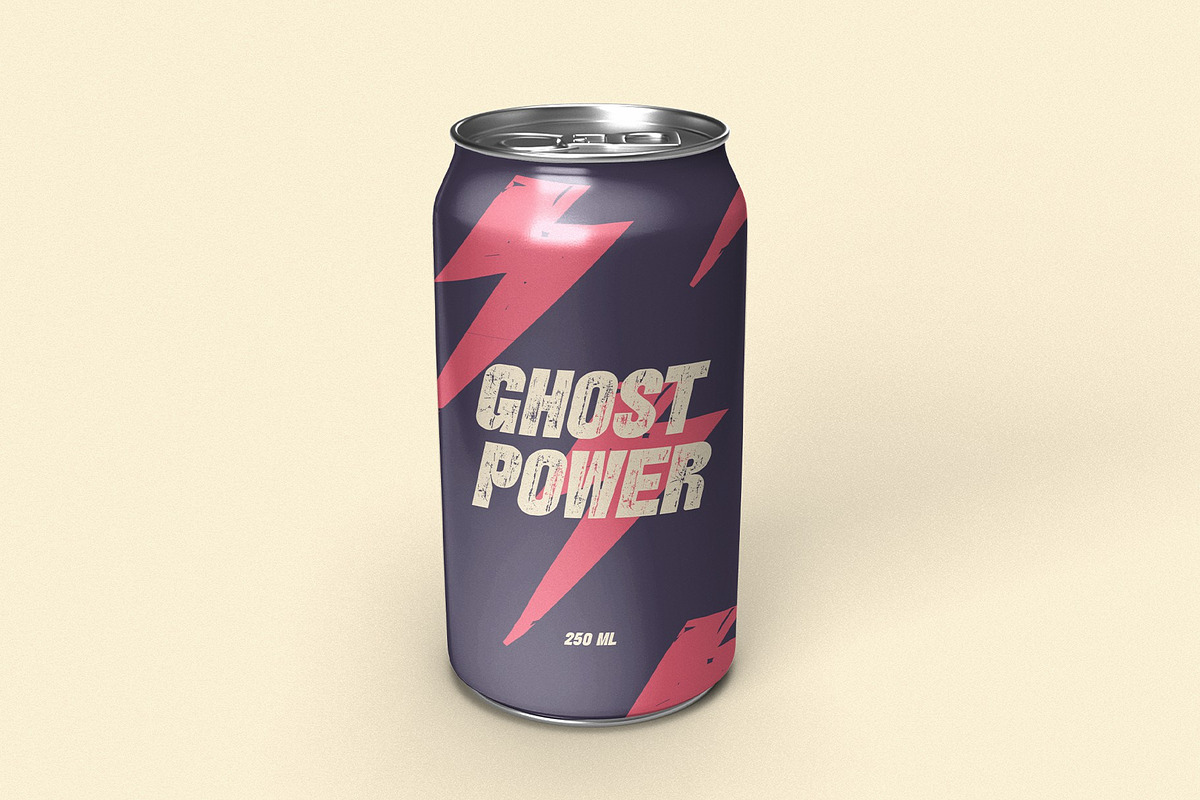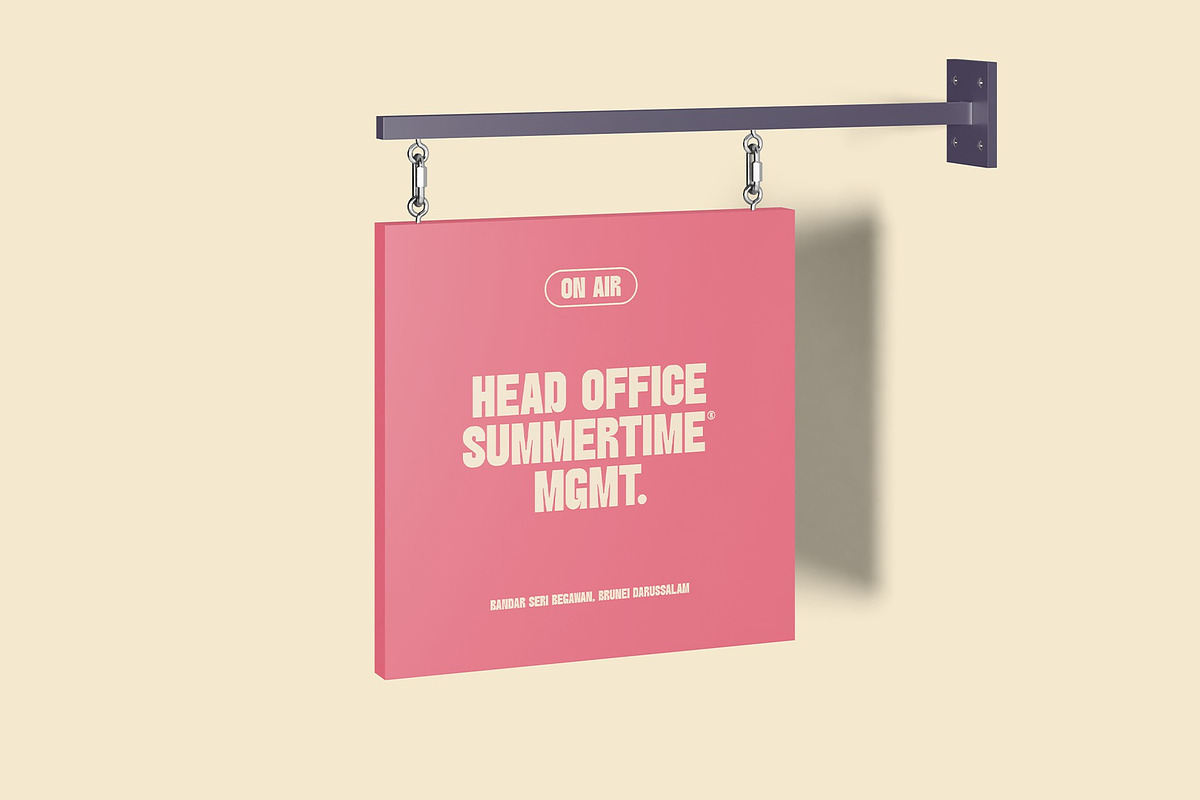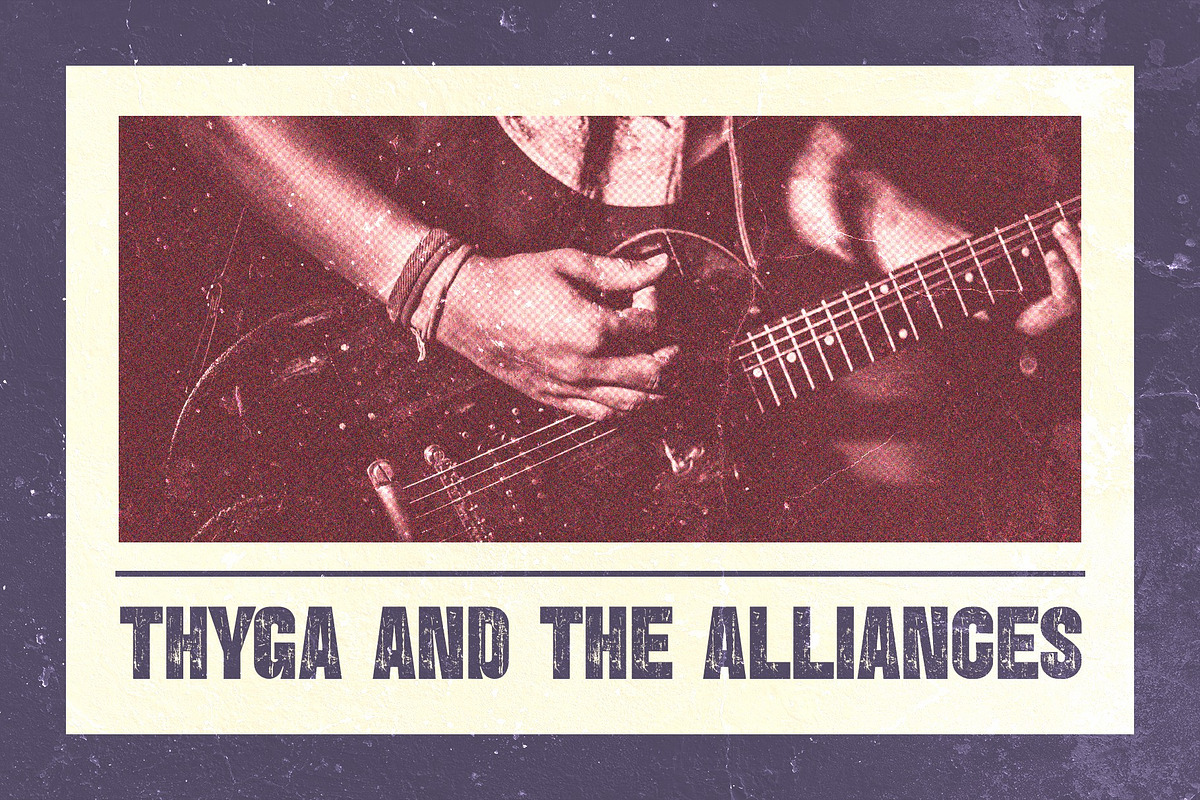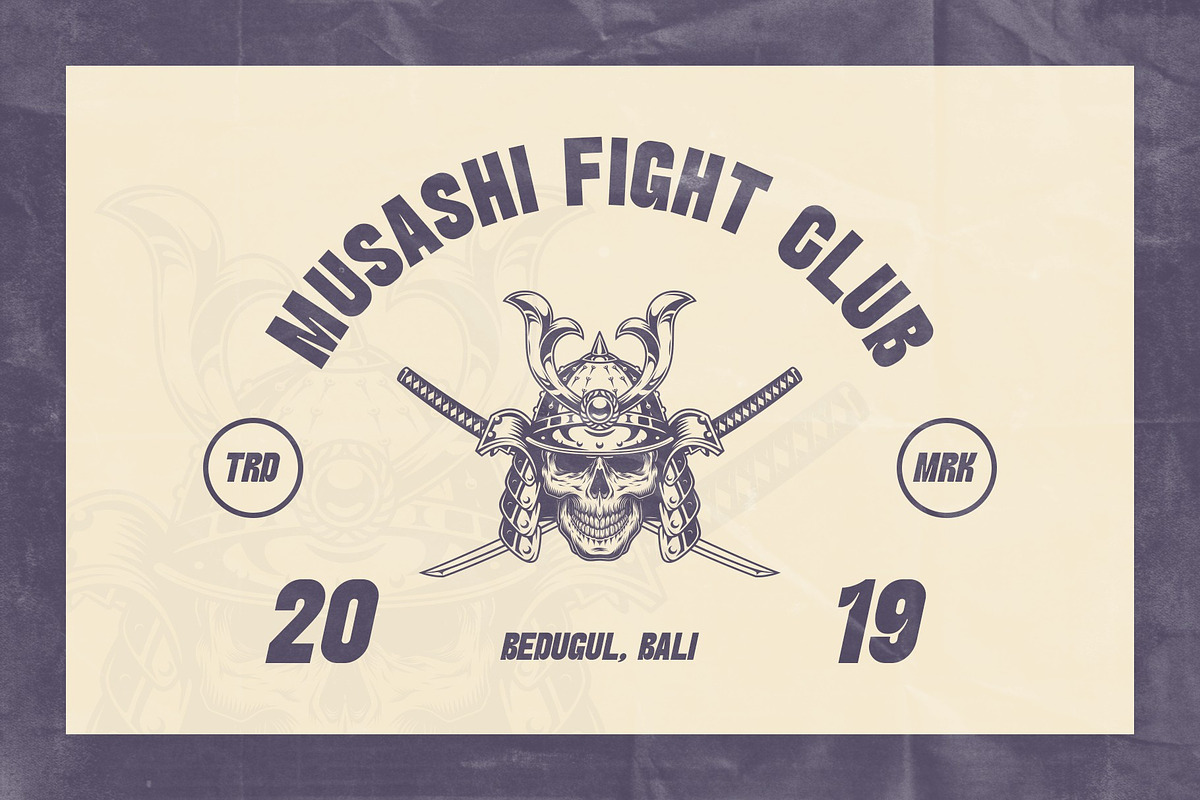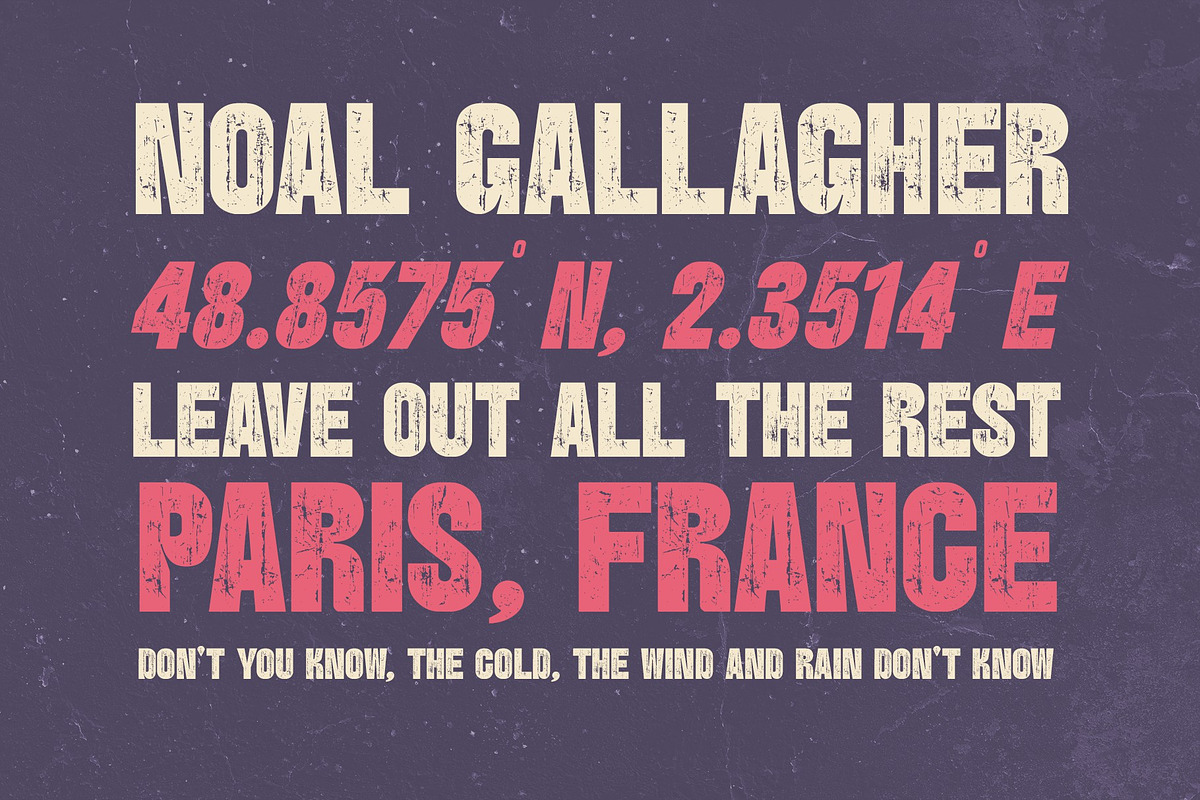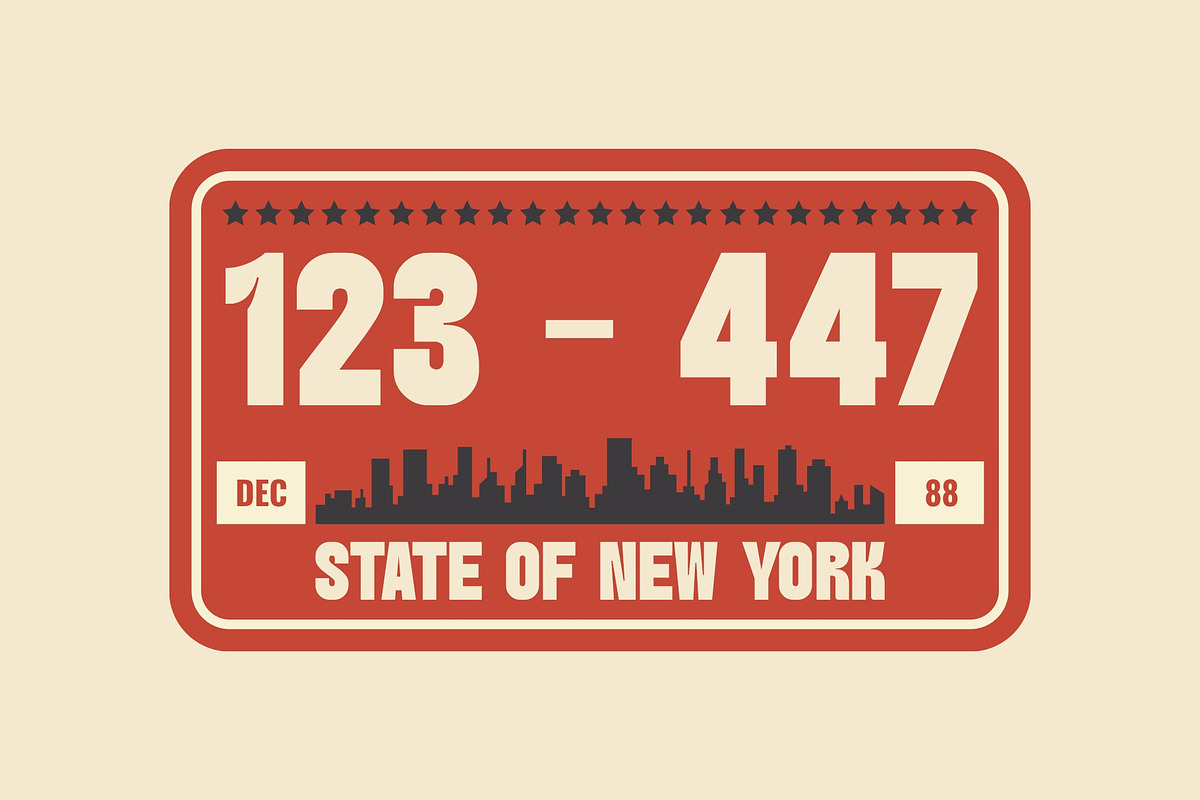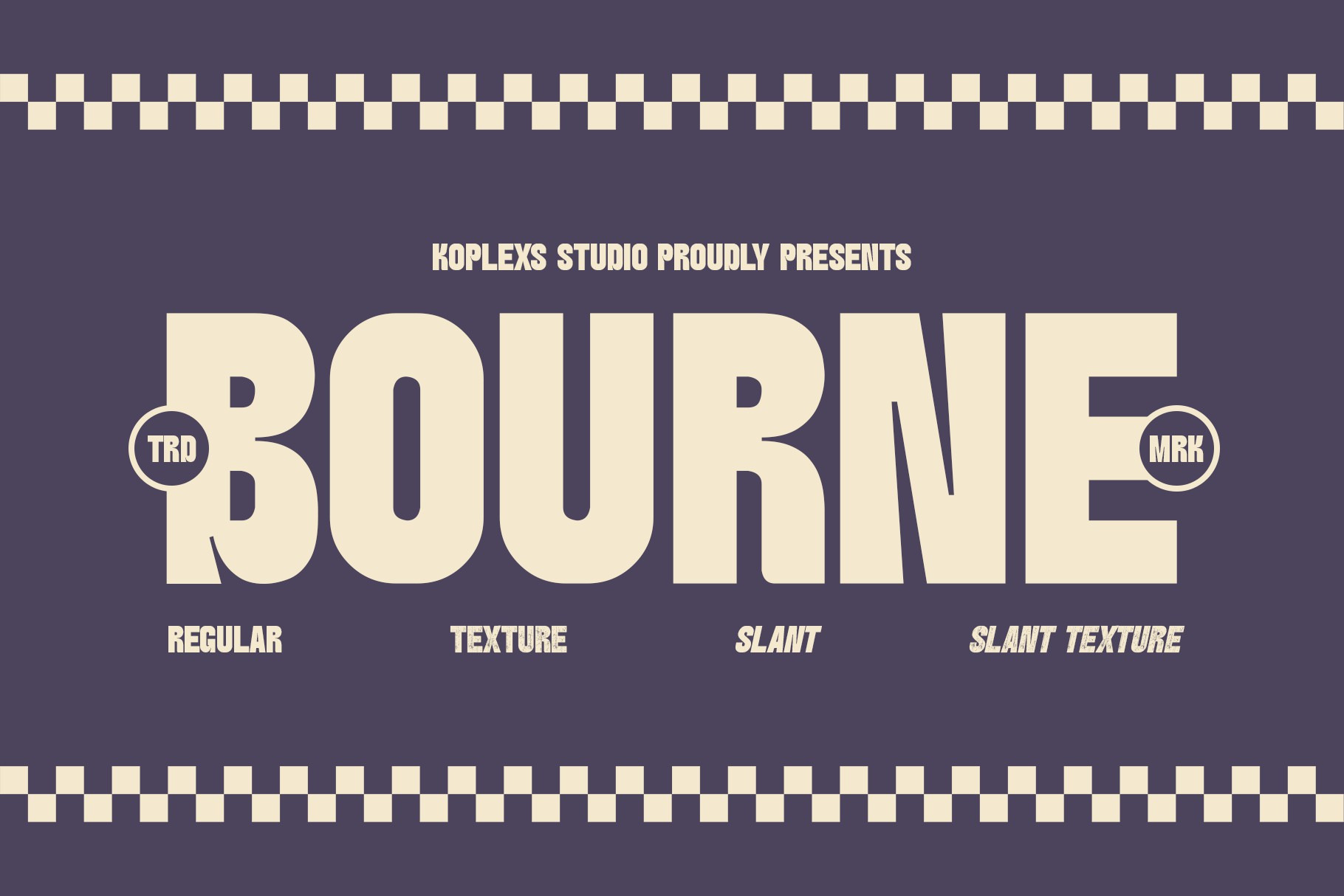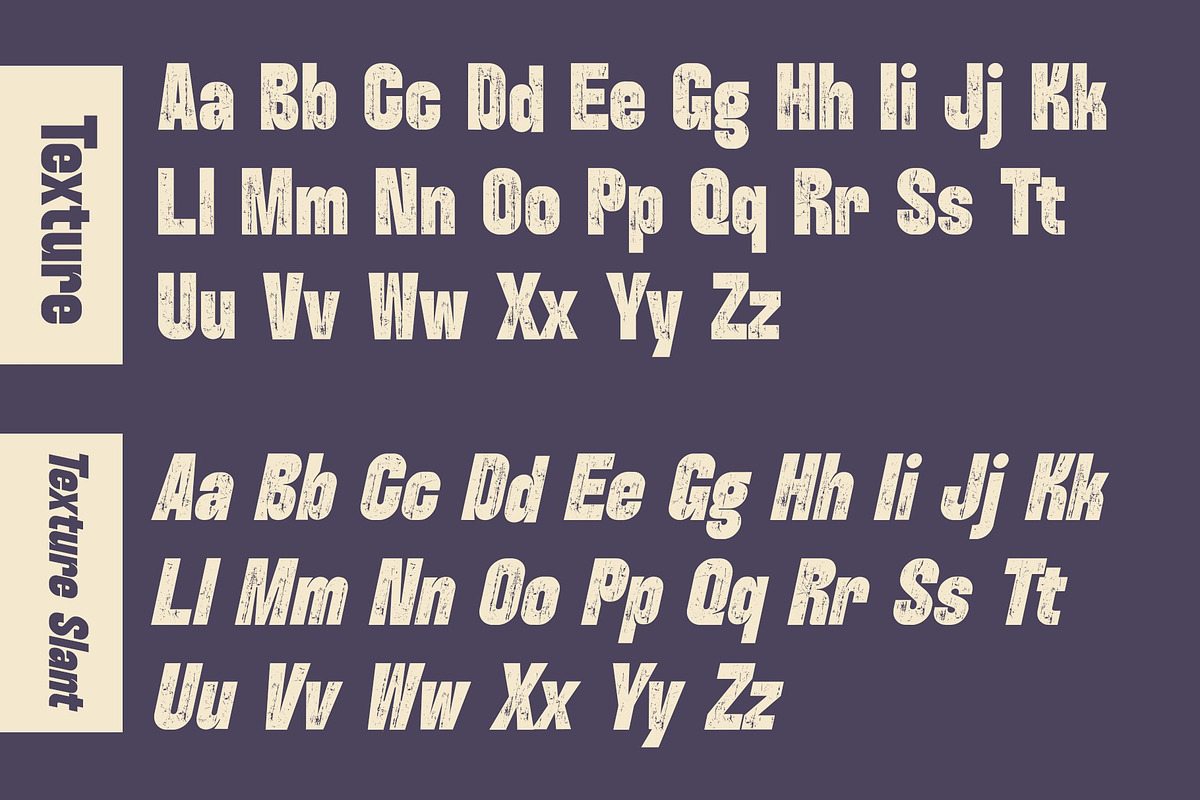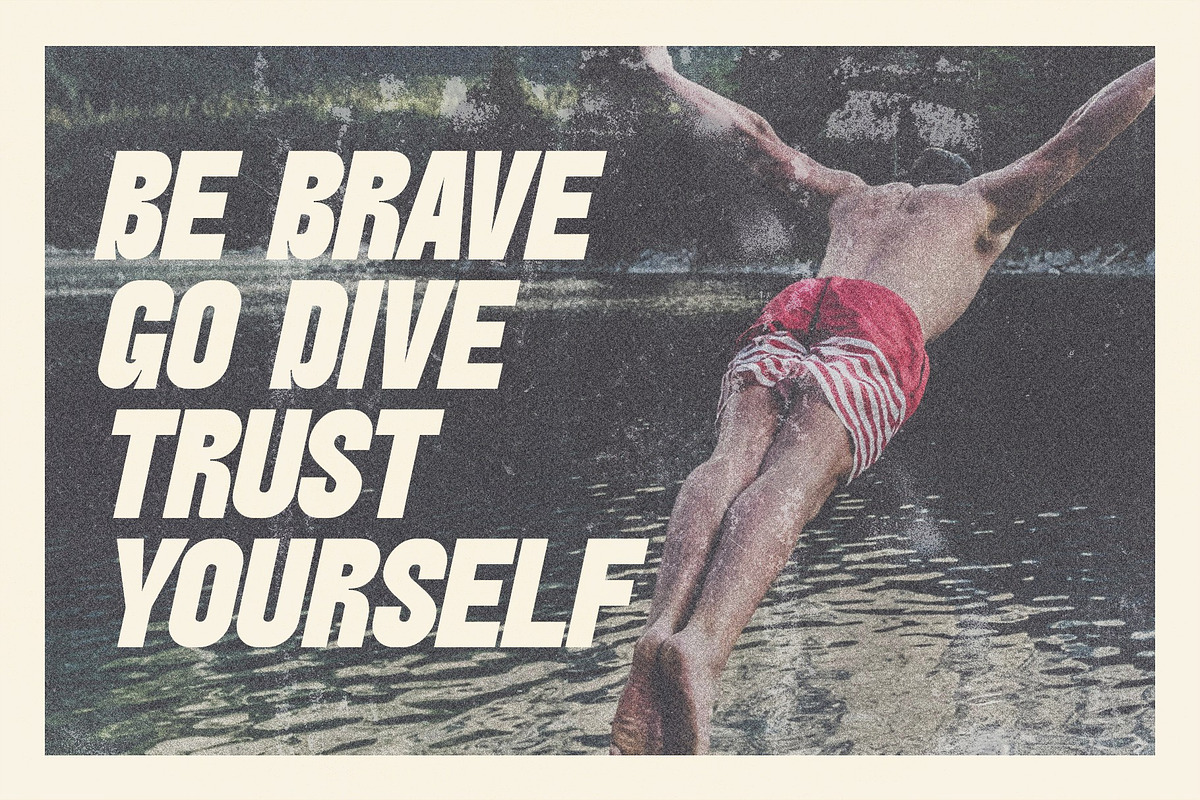
Bourne Font – Bold Retro Typeface
Bourne Font – Bold Retro Display Typeface
Introducing Bourne Font, a bold and versatile display typeface designed to captivate. Crafted with retro aesthetics and modern functionality, Bourne Font features 4 unique styles: Regular, Texture, Slant, and Slant Texture. Each style is perfect for elevating your design projects, from vintage posters and branding to logo design, packaging, and social media graphics.
- 4 Font Styles: Regular, Texture, Slant, and Slant Texture
- Perfect for logos, posters, branding, and merchandise
- Retro-inspired design with a bold, modern touch
- Ideal for both print and digital projects
Whether you're designing for a modern brand or looking to bring a vintage feel to your project, Bourne Font delivers unmatched versatility and style. Download it now to start creating bold, standout designs!